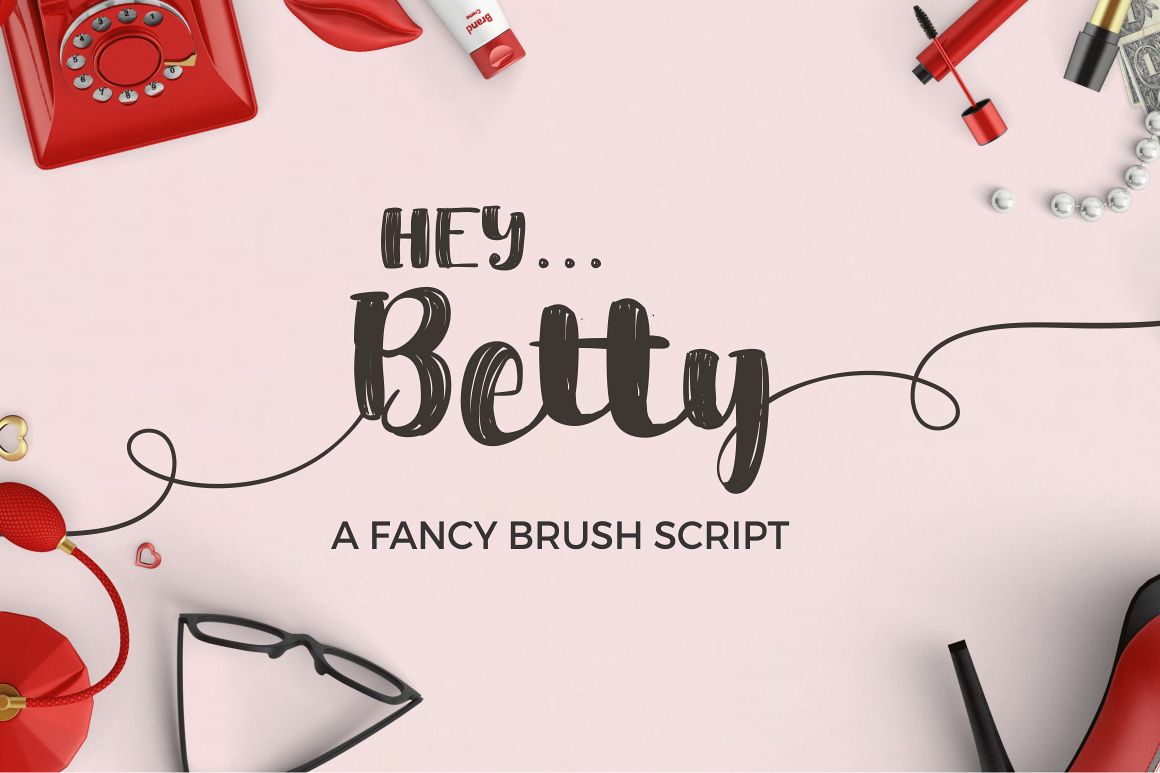
Hey Betty is a wonderful Brush Font, designed to give that ultra-modern
feel. Perfect for T Shirt Designs, Display Art and Card Invites, Hey Betty
certainly brings something extra to your design work.